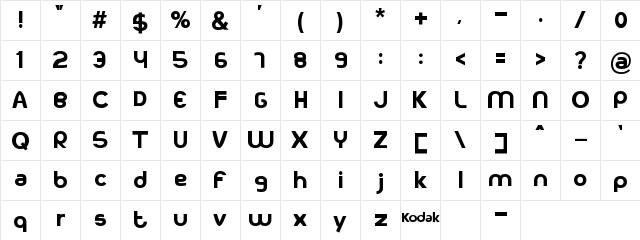
kodak Regular
| Foundry | Eastman Kodak Company |
| Designer | Sanz d'Cloudz |
Design Context for kodak Typeface
kodak offers clean, dependable letterforms without strong stylistic allegiance, making it a practical choice for designers who need flexibility.